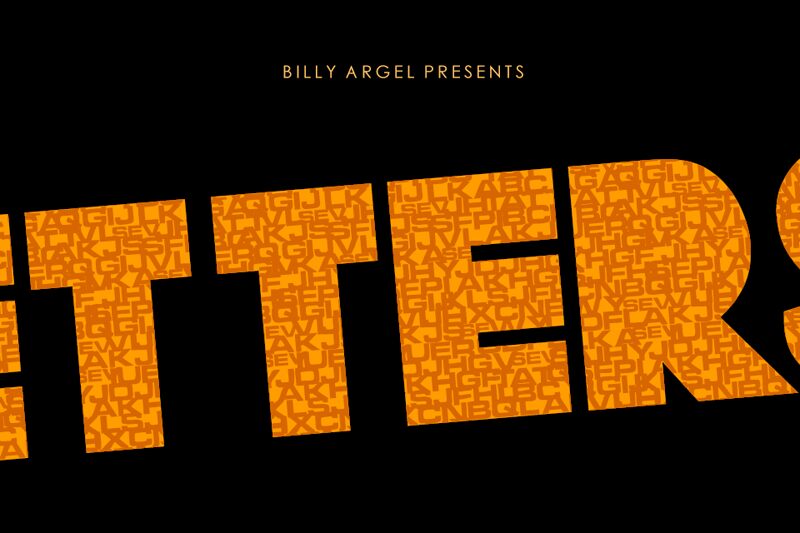
LETTERSPERSONALUSE-Regular
LETTERS is a bold and decorative display font designed by Billy Argel. Its unique and eye-catching style makes it perfect for projects that require a touch of personality and character, such as logo design, book covers, or album artwork. Use it to add a sense of fun and playfulness to your designs, or to create a sense of boldness and strength. LETTERS is the perfect font for anyone looking to make a statement with their work.
Layered SVG color font.